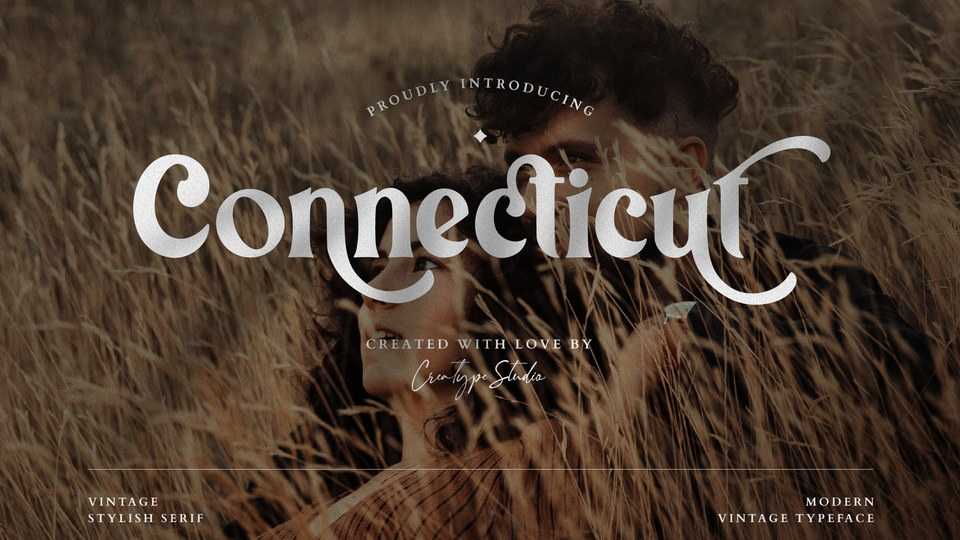
Download Connecticut font, a decorative vintage serif typeface with a 60s to 70s feel that looks very stylish and very elegant. Connecticut is perfect for any projects that need handwriting taste.